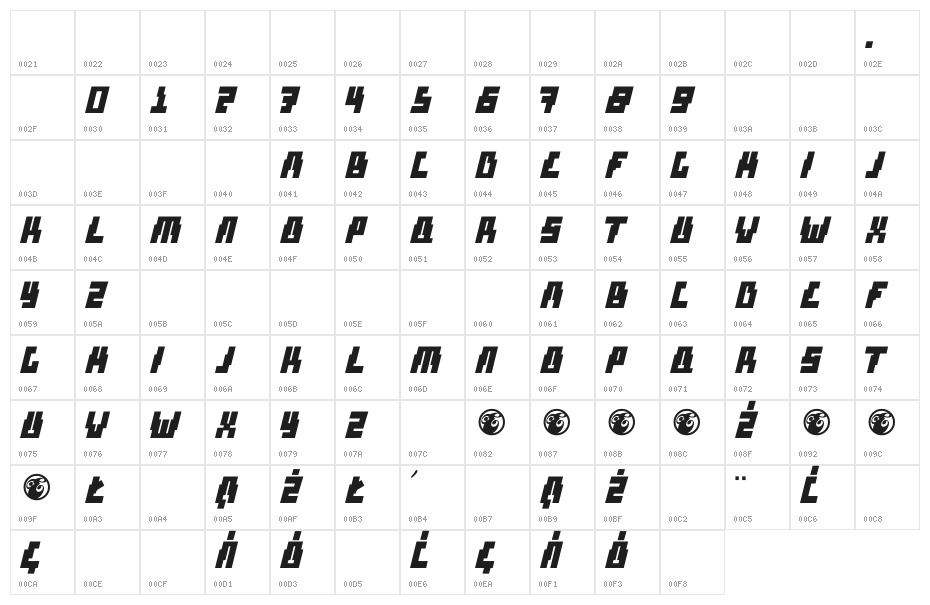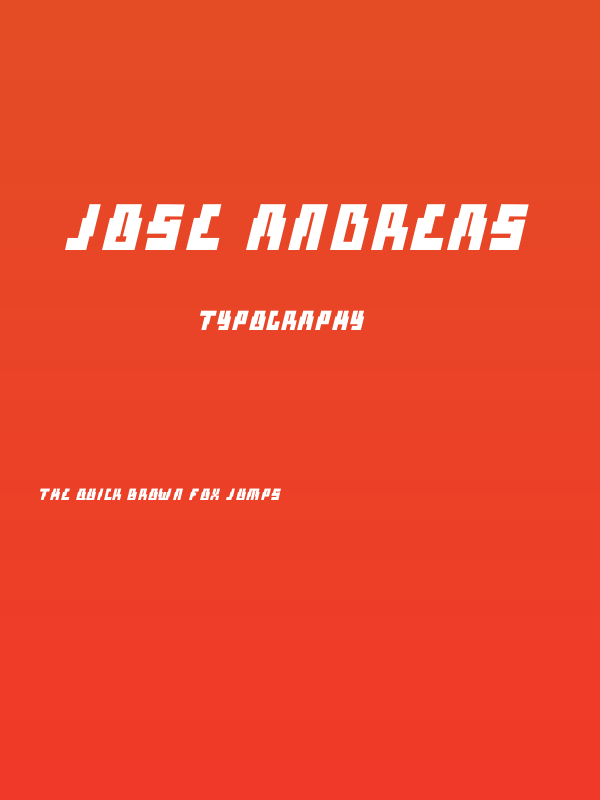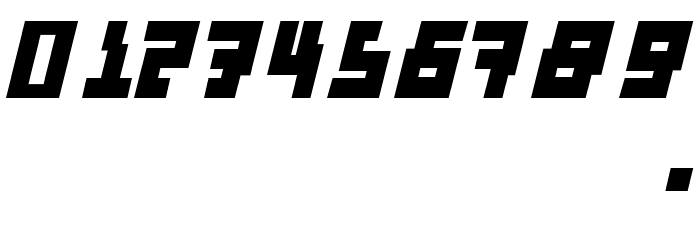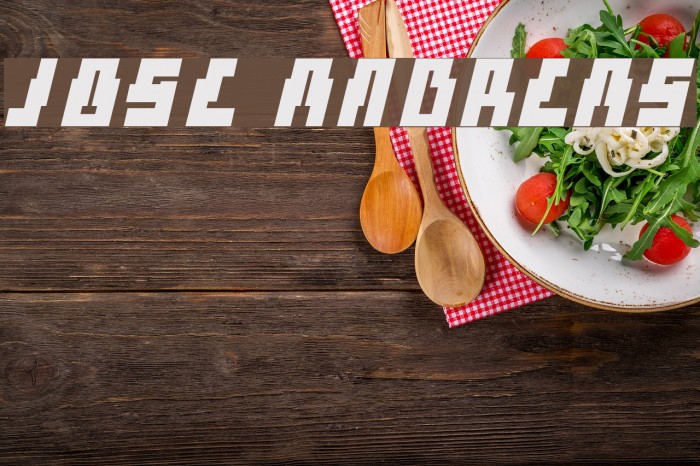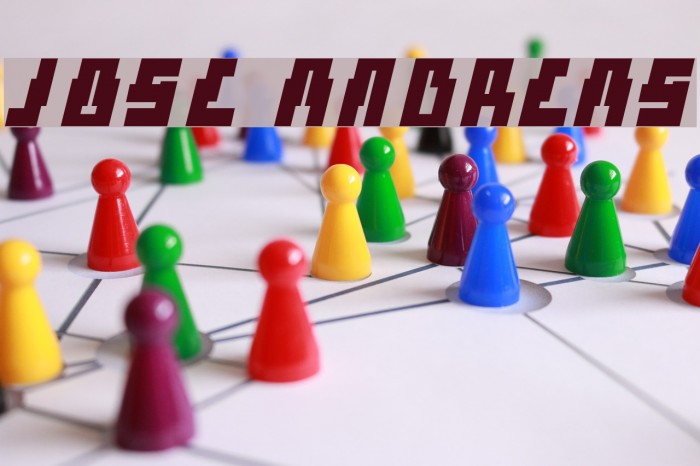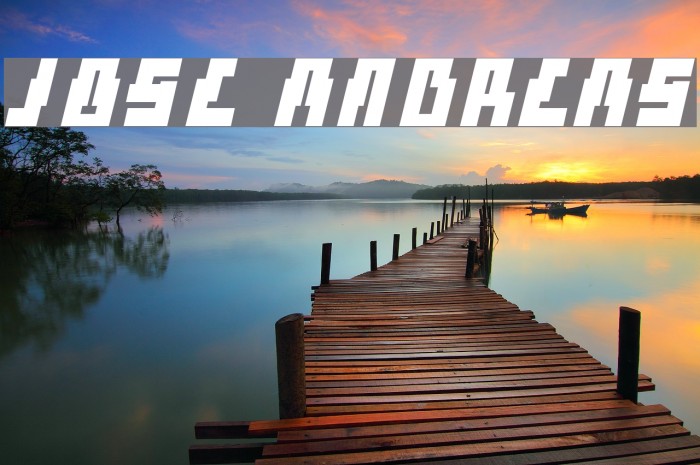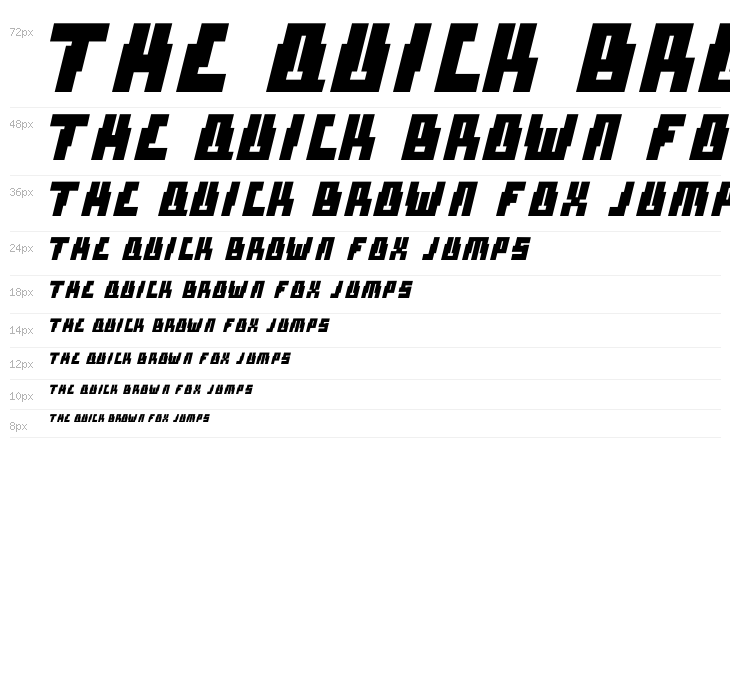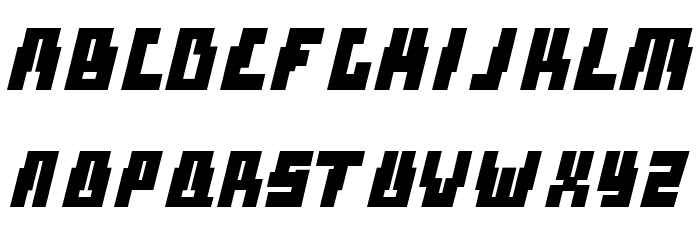
Jose Andreas Font
Jose Andreas Description
This font features a bold, angular design with a strong geometric influence. The characters are constructed with sharp, straight lines and distinct angles, giving it a futuristic and dynamic appearance. The uppercase and lowercase letters maintain a consistent style, with the uppercase being more prominent and commanding. The numbers and special characters follow the same design principles, ensuring uniformity across all glyphs. The overall aesthetic is modern and assertive, making it suitable for projects that require a bold statement.
| Use Case | Logos, Headlines |
| Proposed Projects | Ideal for branding, sports team logos, video game titles, and tech-related projects. |